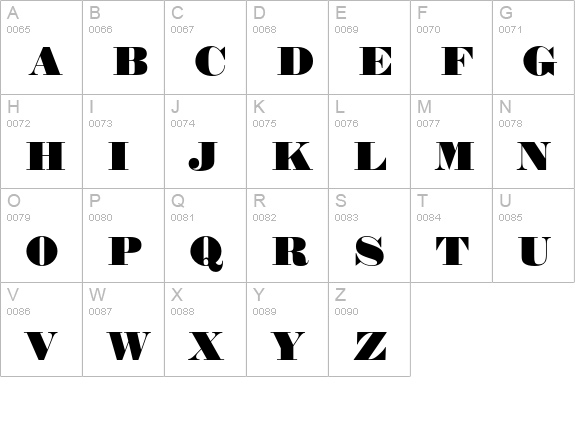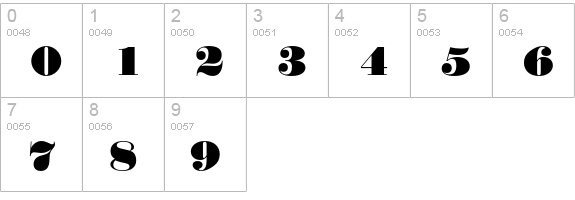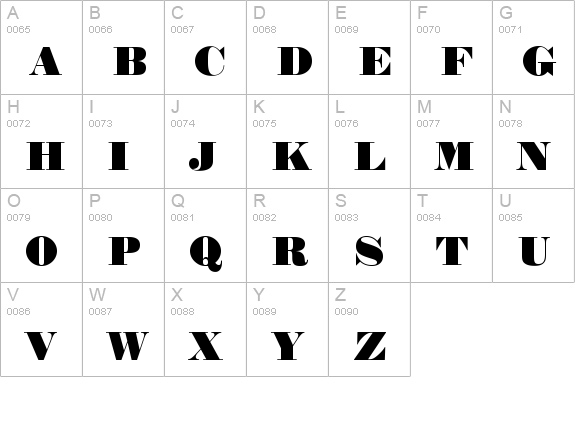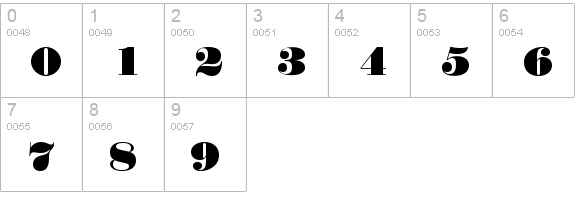
Normande is a versatile and elegant font that captures the essence of classic typography with a modern twist. Its clean lines and balanced proportions make it suitable for a wide range of design projects, from branding to editorial design. The versatility of Normande allows it to be used for both display and body text, making it a practical choice for any designer. The best part about Normande font is that it is completely free to download at FontsMarket.com. This means that you can access this high-quality typeface without any cost, making it a valuable resource for both professional designers and hobbyists alike. With its timeless appeal and easy accessibility, Normande is sure to become a staple in your font collection.